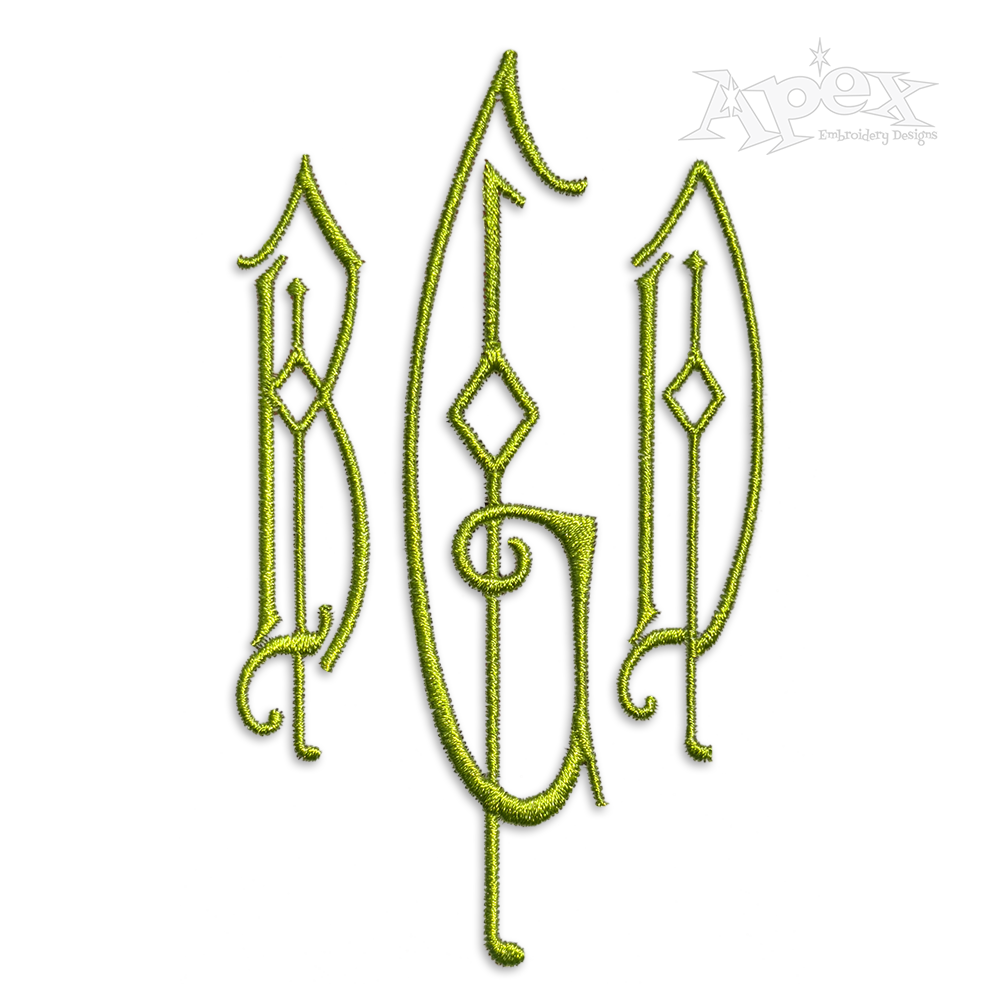
Brigitte Monogram Embroidery Font
Brigitte Monogram Machine Embroidery Font. Swirly 3-Letter Monogramming Alphabet Accents. Curly Small & Large Digitized Initial Sewing Pattern Instant Download File